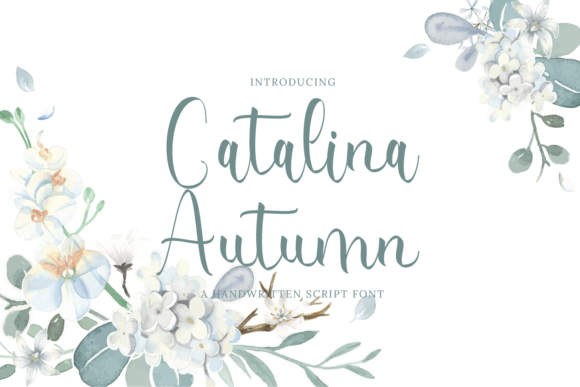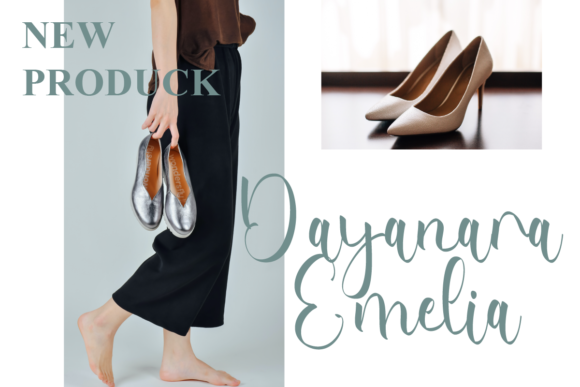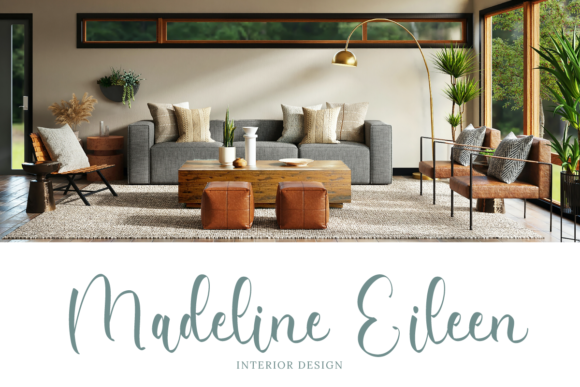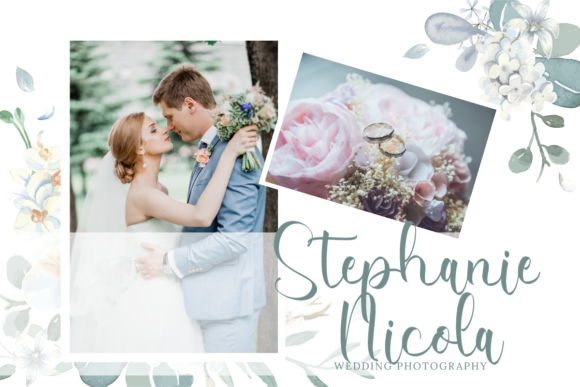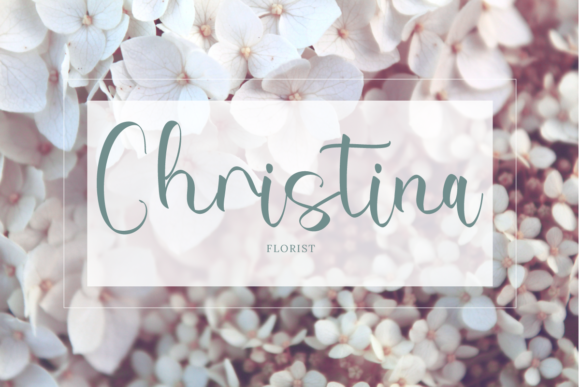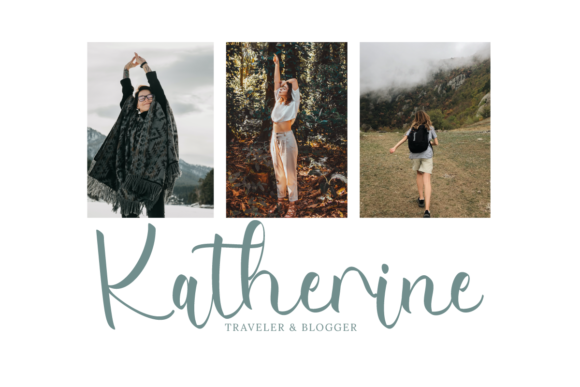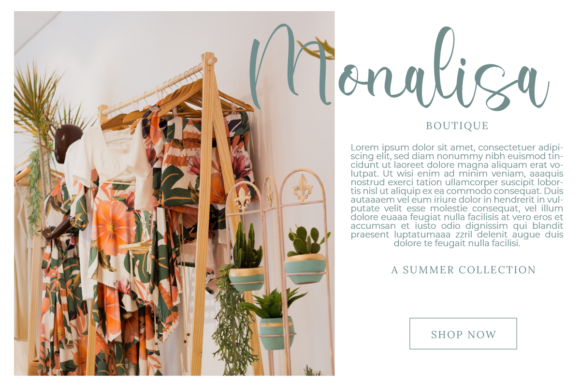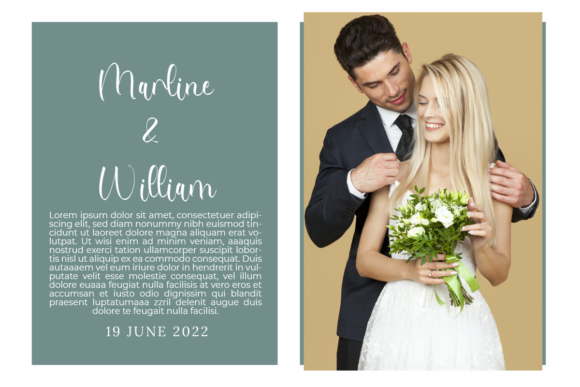
About Catalina Autumn Font
Catalina Autumn is a delicate and fashionable script font. It is perfect for any branding project such as logos, t-shirt printing, creative products, and more. It will look extraordinary in a variety of contexts.